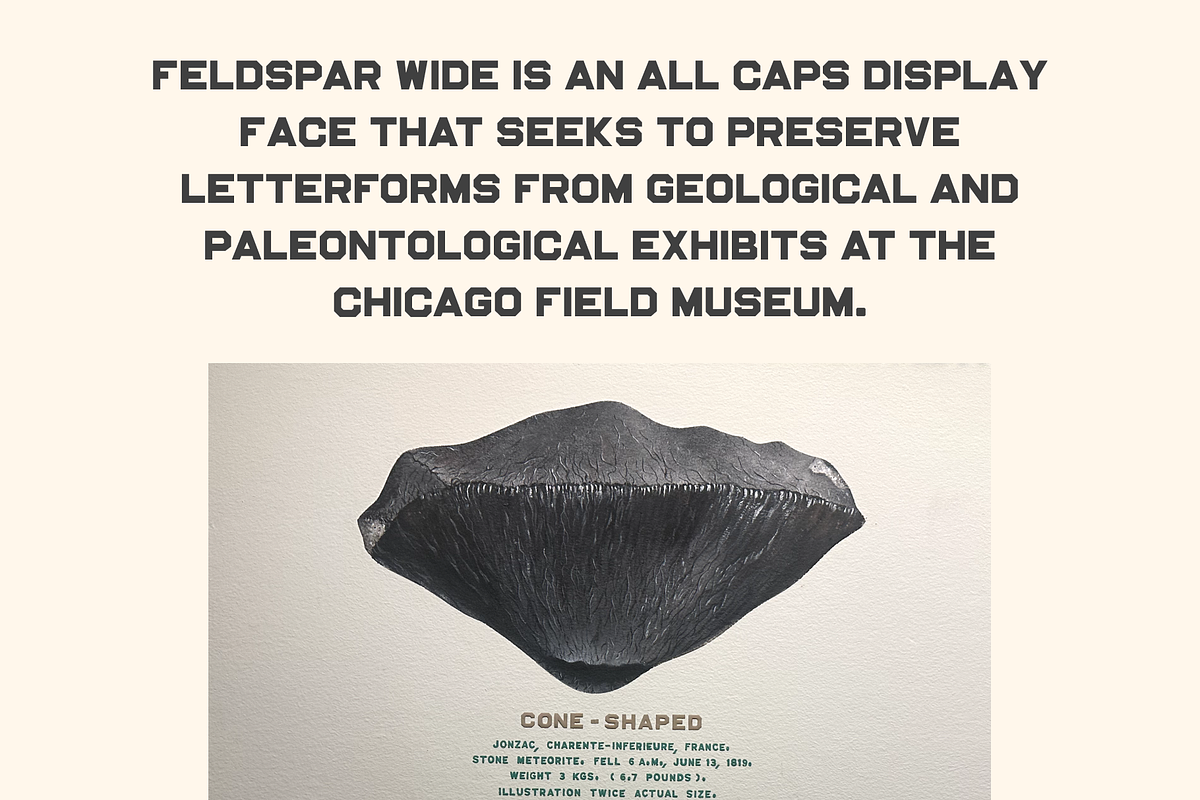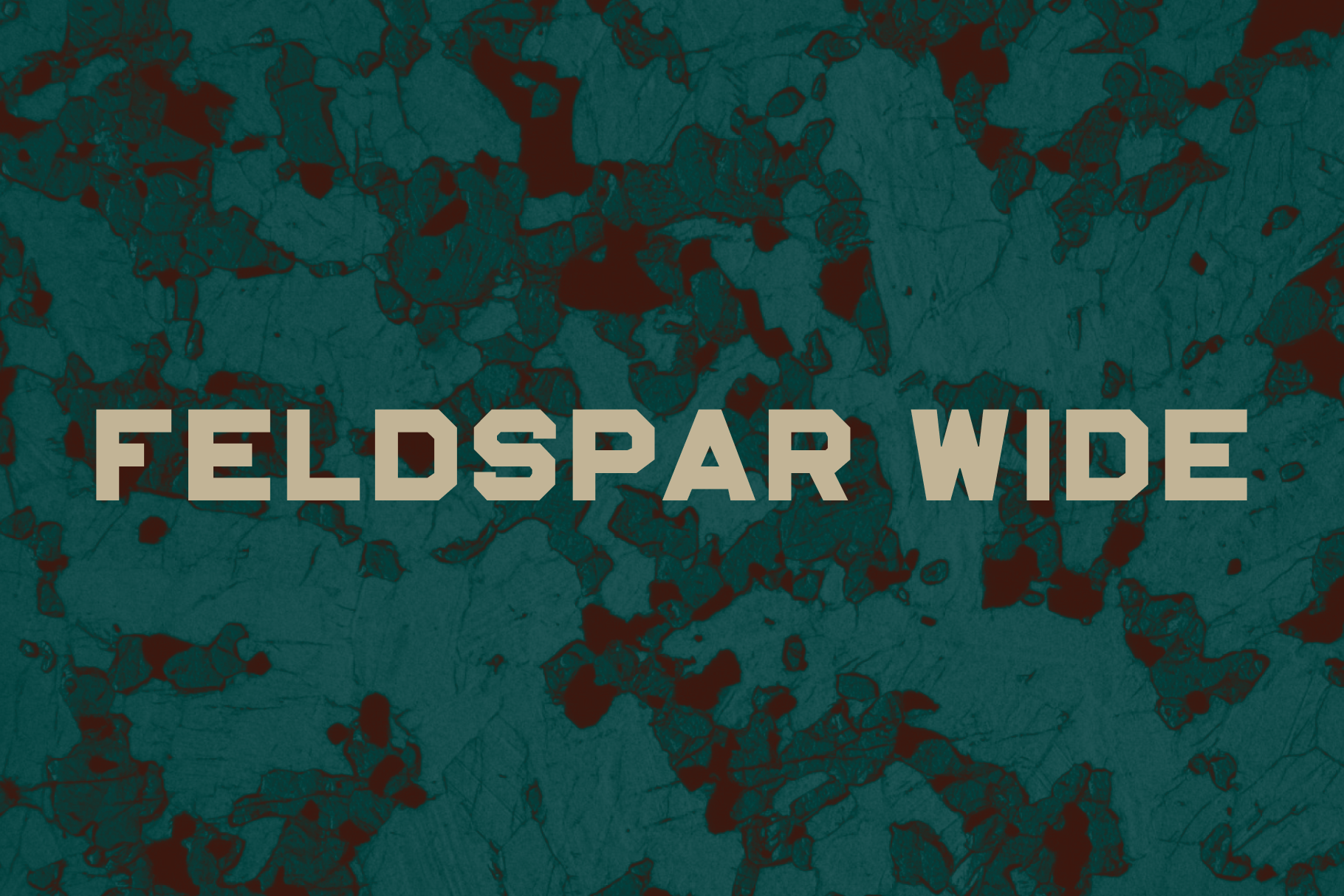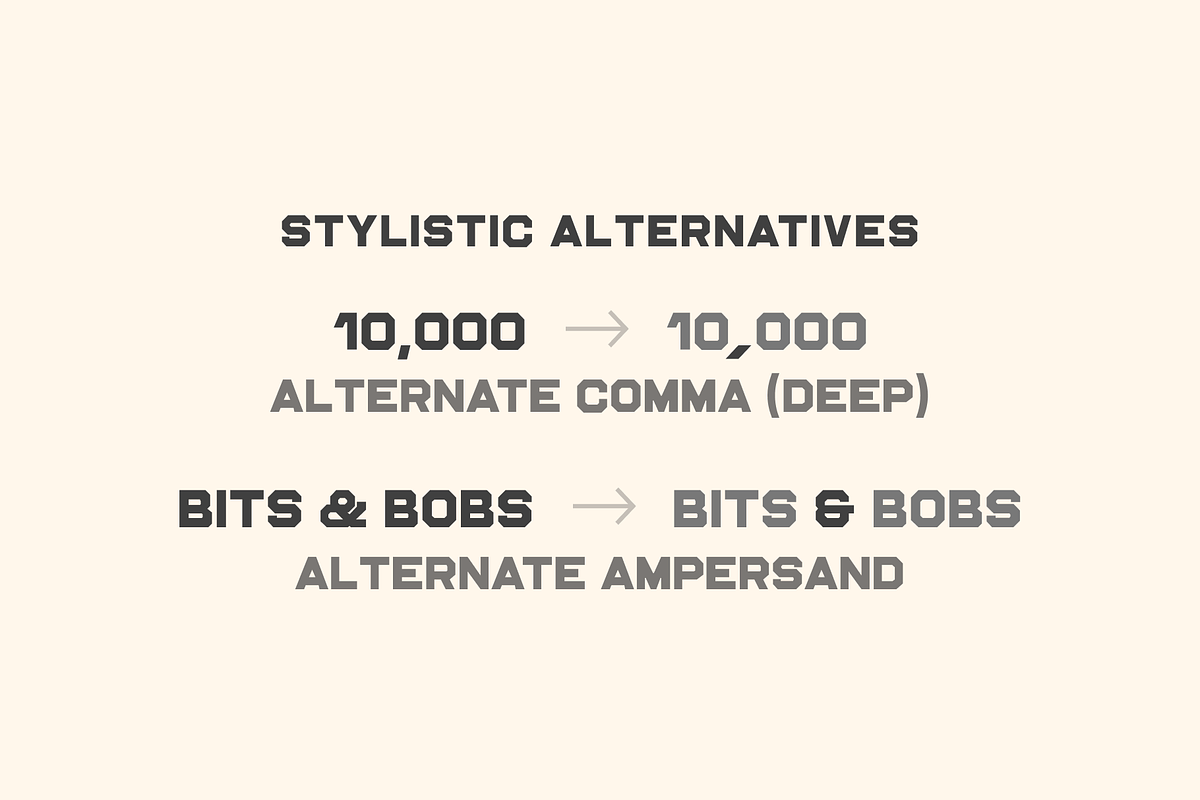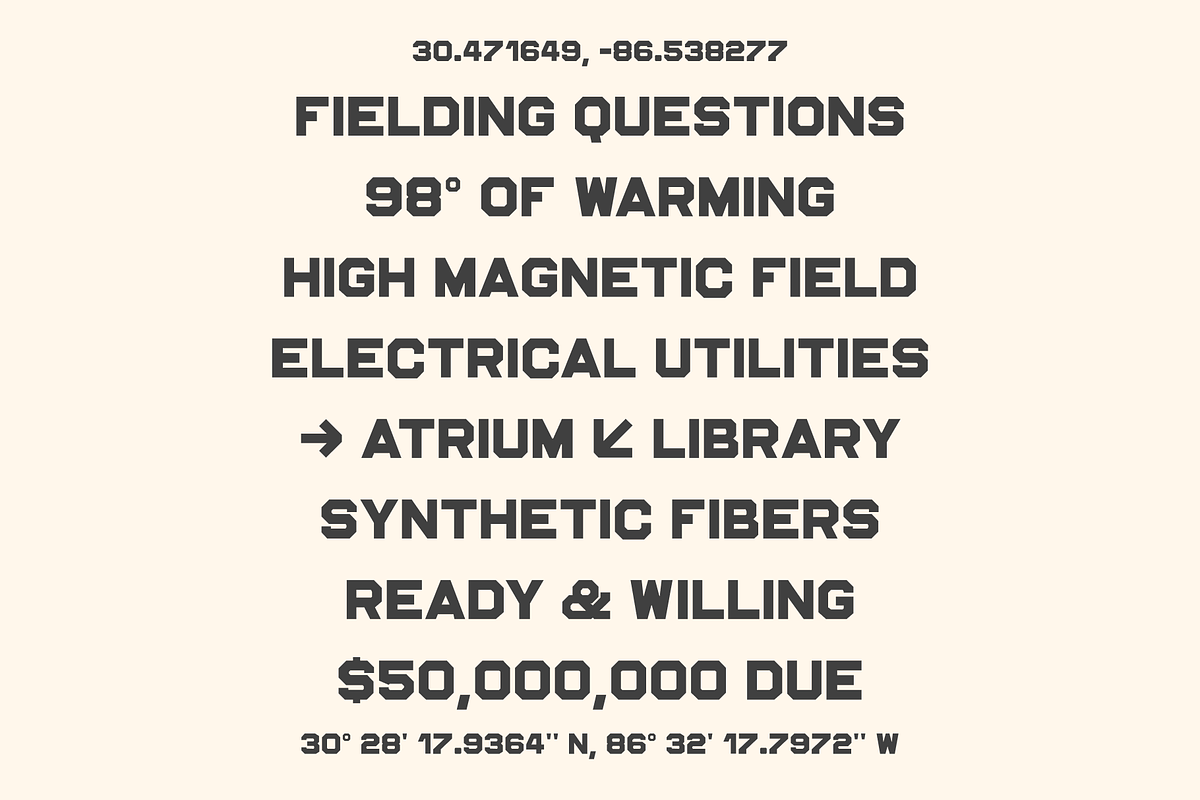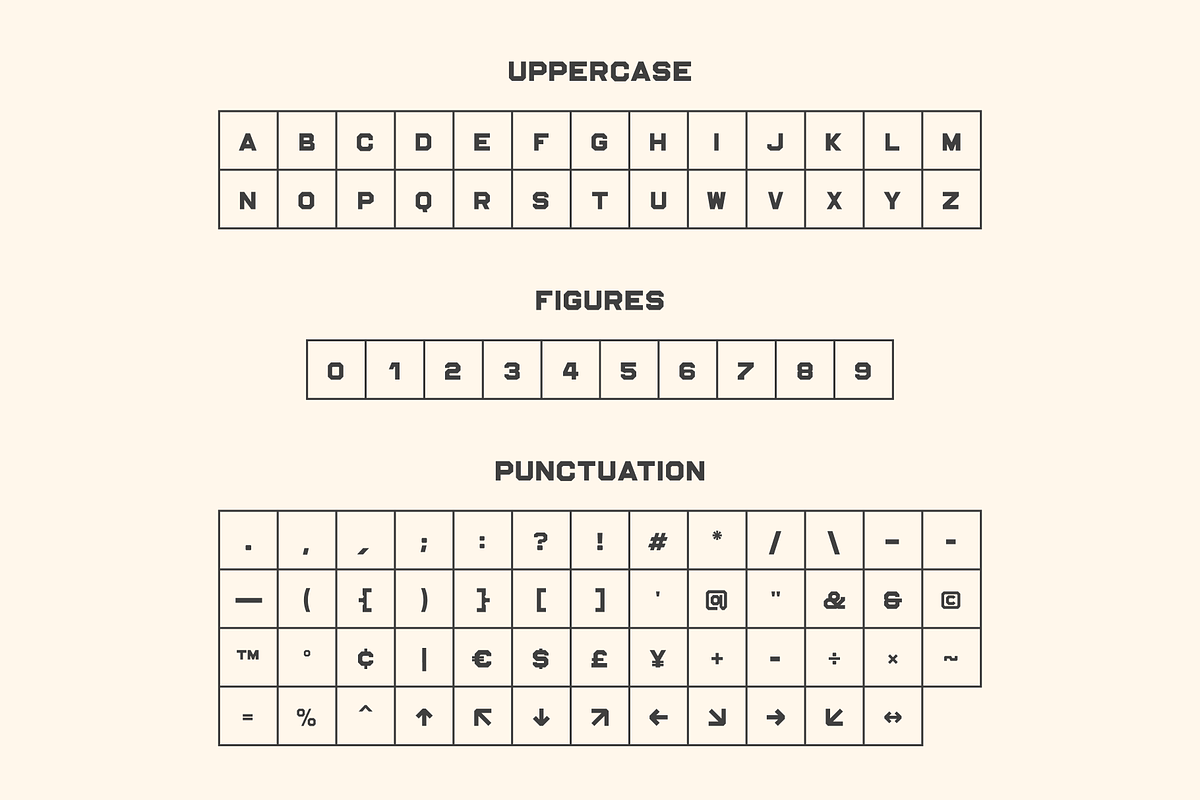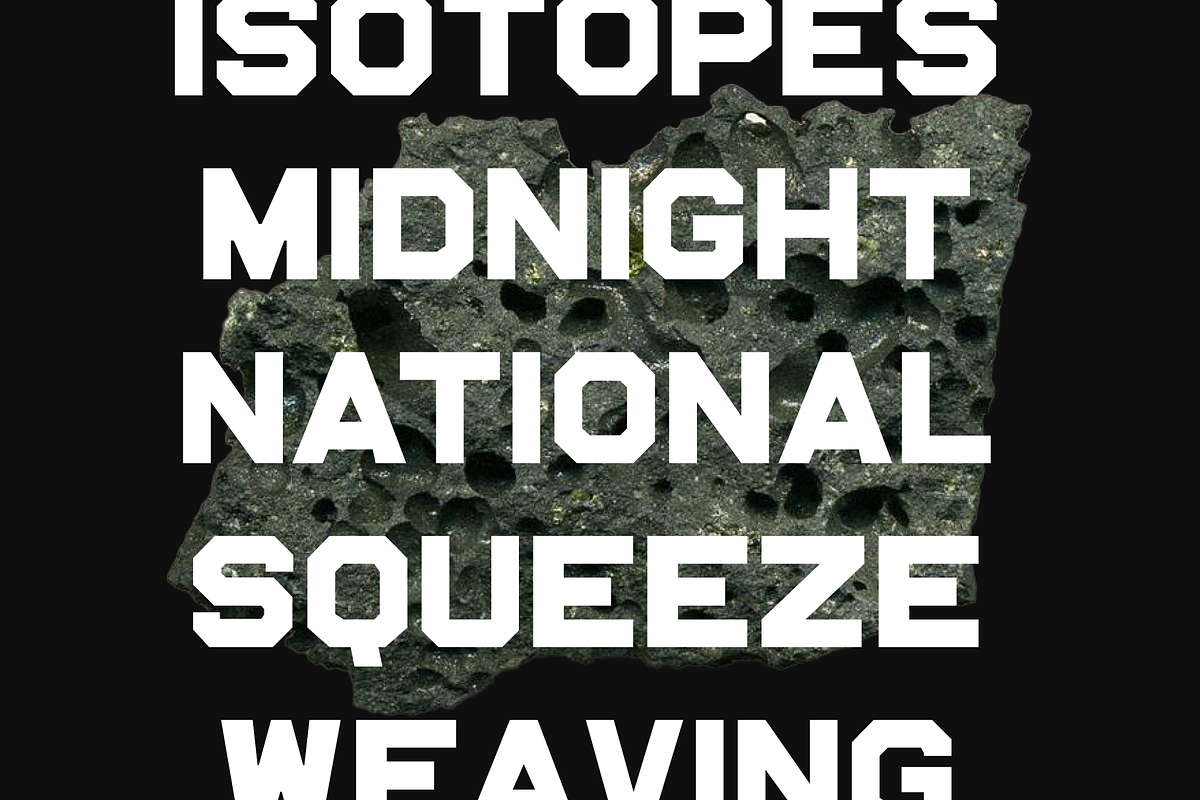
Feldspar Wide - Caps Display Font
Feldspar Wide is an all caps display face that seeks to preserve letterforms from Geological and paleontological exhibits at the Chicago Field Museum. Contains all-caps letterforms and select symbols.
More about the typeface: The field museum meteorite exhibits featured an all-caps, sharp, bold-face cut out of vinyl. Many of the letterforms were very small, but the sharpness of their interior miters made it very readable from far away. I tried to keep this while restoring even widths and order to the forms.